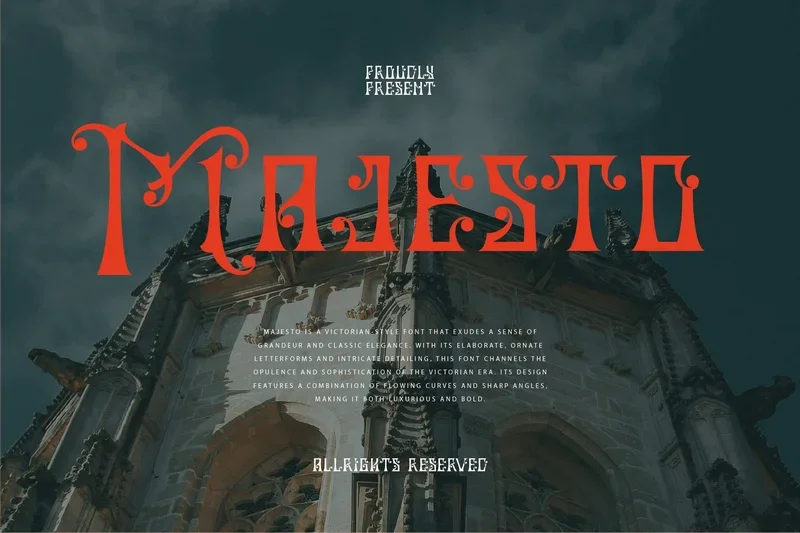
Majesto – Victorian Font
Majesto is a Victorian-style font that exudes a sense of grandeur and classic elegance. With its elaborate, ornate letterforms and intricate detailing, this font channels the opulence and sophistication of the Victorian era. Its design features a combination of flowing curves and sharp angles, making it both luxurious and bold.